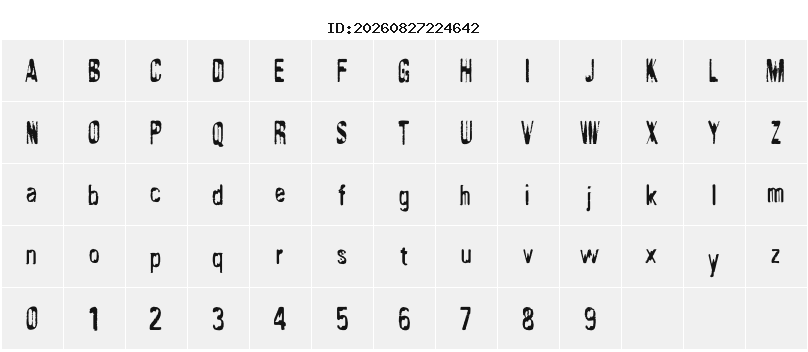
• Font Name: Twoface ICG
• Full Font Name: Twoface ICG
About Twoface ICG.ttf
Twoface ICG.ttf is a modern, elegant sans-serif font designed for ultimate readability and visual harmony. Perfect for branding, headlines, web design, and print materials.